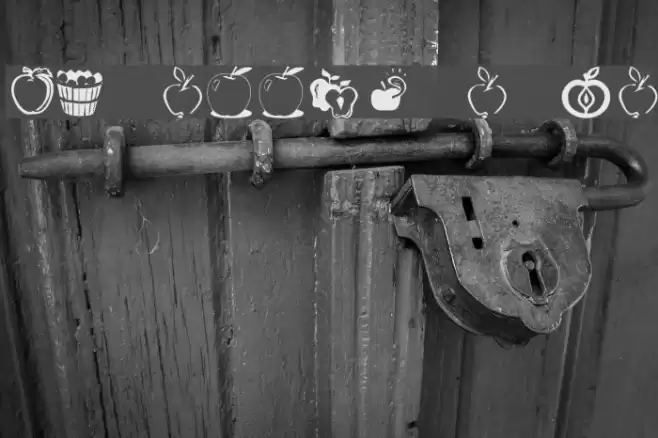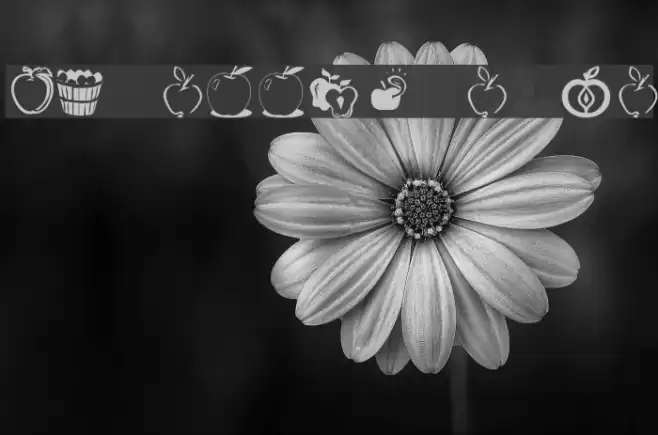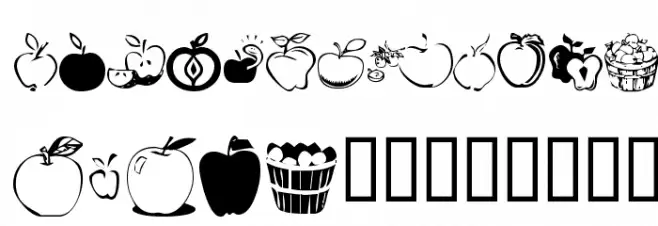
KR Apple A Day Font
KR Apple A Day Description
This is not a traditional font but rather a collection of apple-themed icons and illustrations. Each character is represented by a different apple design, ranging from simple outlines to detailed illustrations of apples and apple baskets. The designs are playful and varied, showcasing apples in different styles and forms, including whole apples, sliced apples, and apples with leaves. The icons are bold and clear, making them suitable for decorative purposes.
A collection of apple-themed icons and illustrations from Uncategorized fonts.
- Proposed Projects: Ideal for food-related branding, educational materials about fruits, or decorative elements in design projects focused on nature or agriculture.
- Overall Style: Playful, Decorative
- Use Case: Logos, Decorative elements